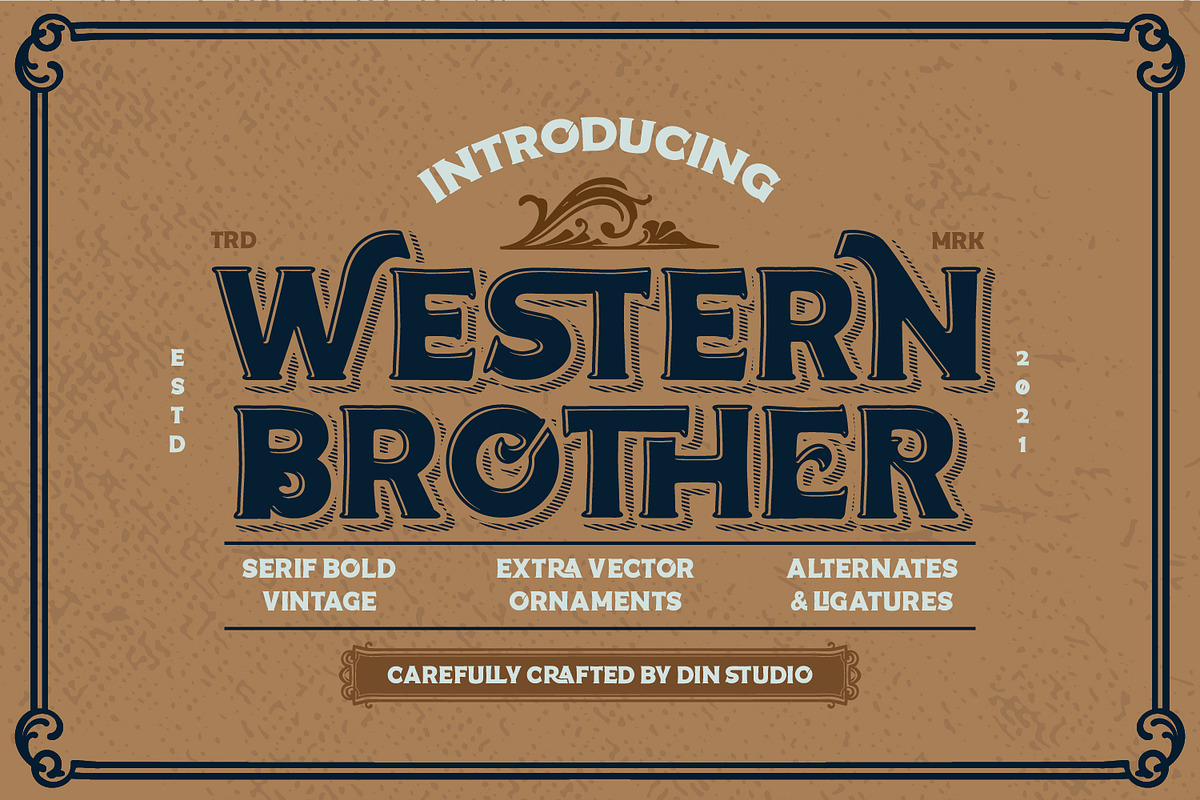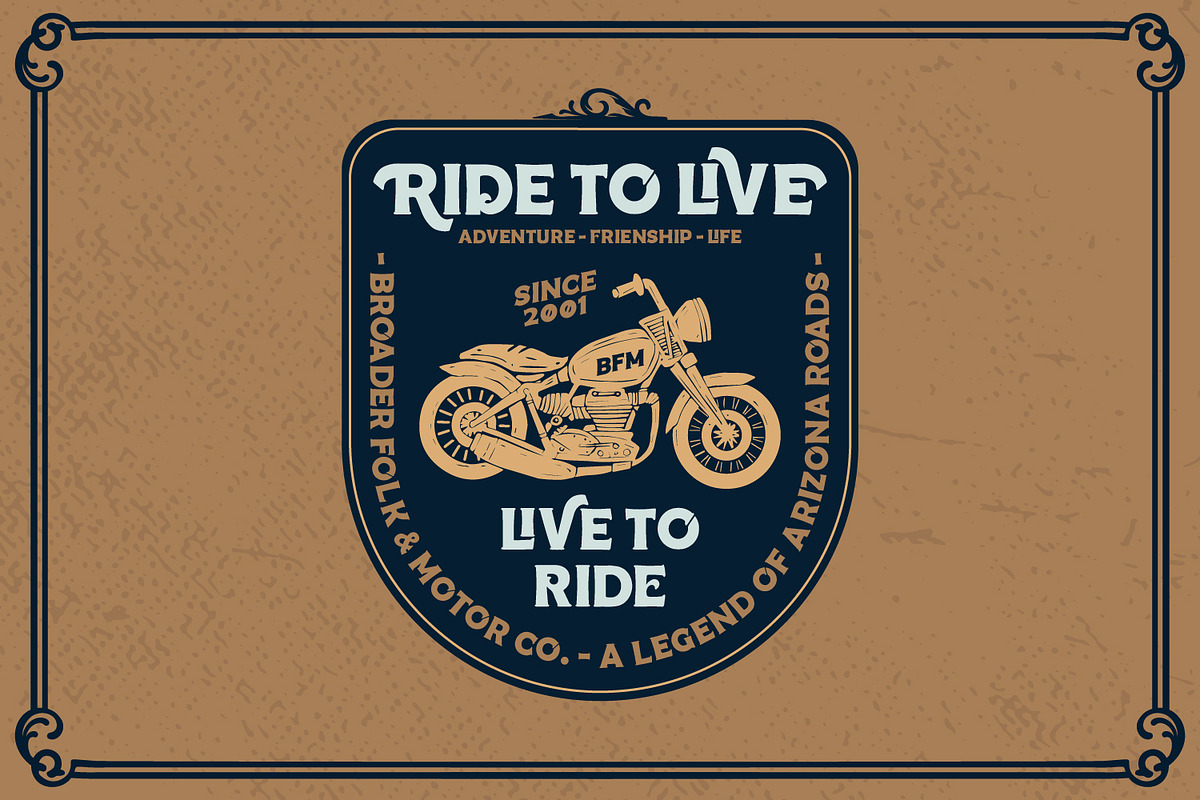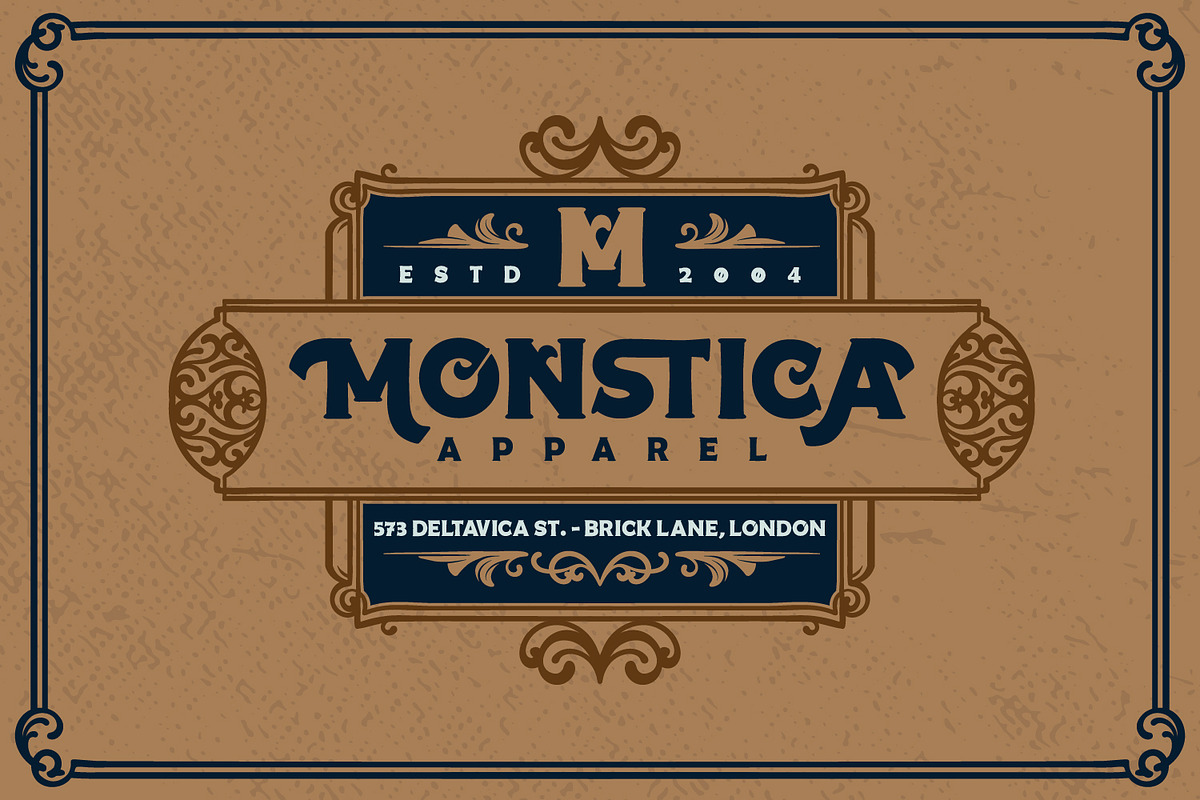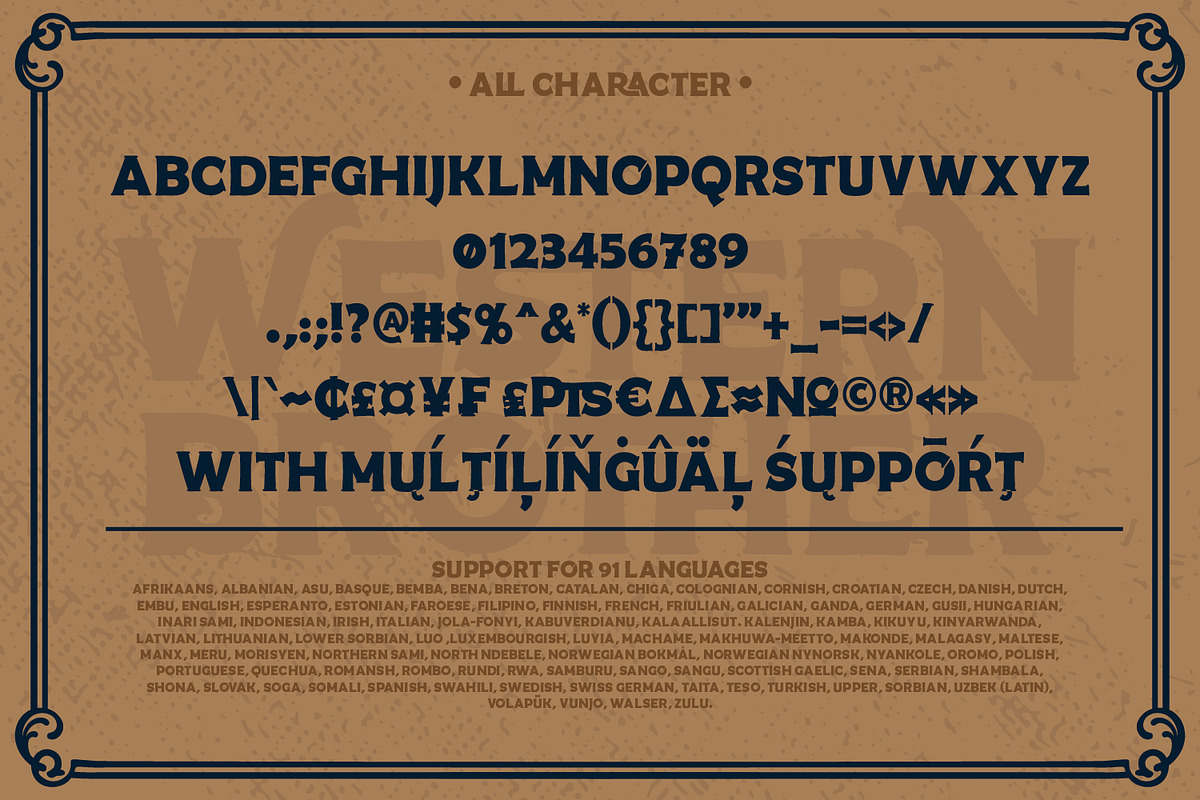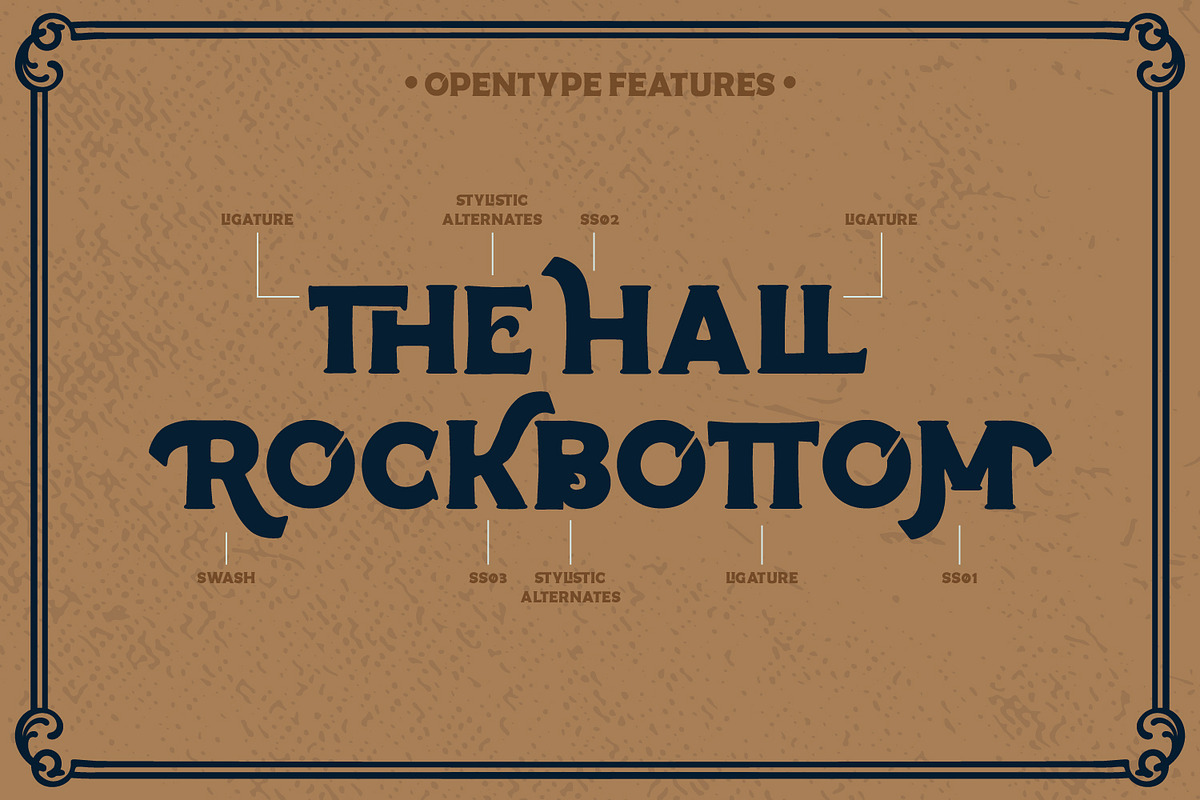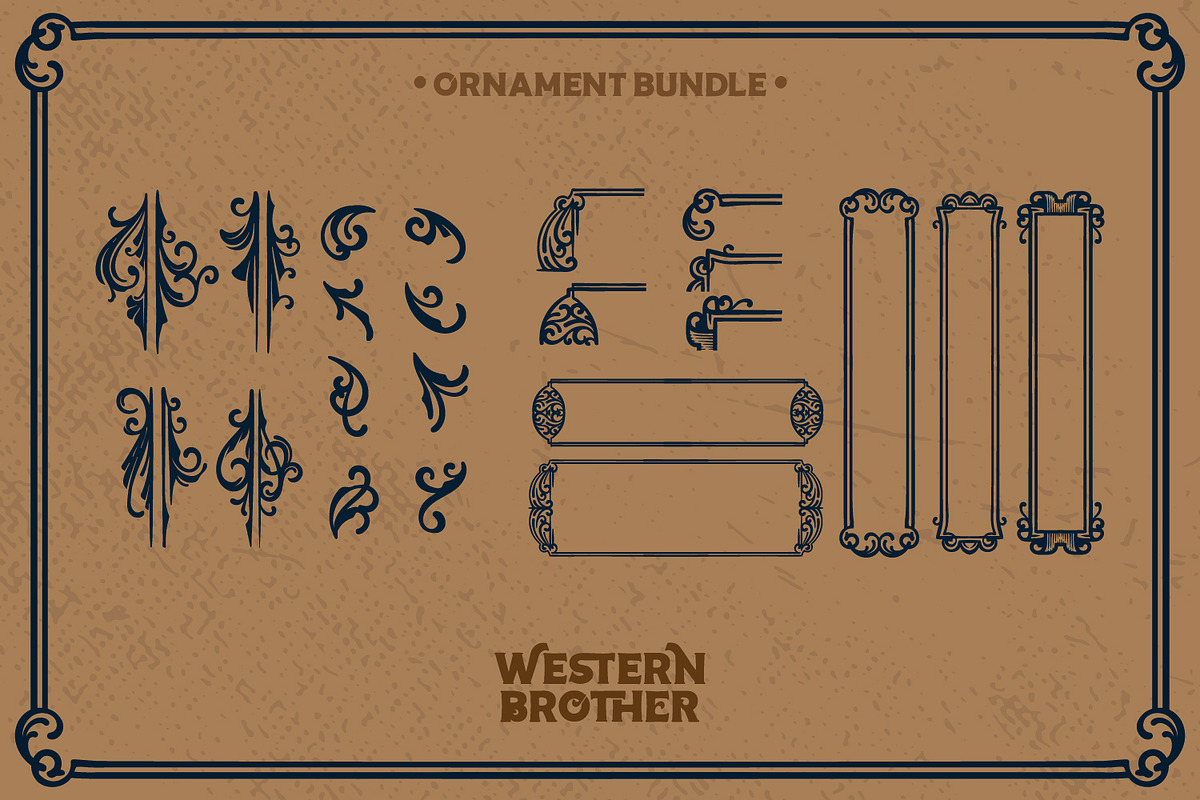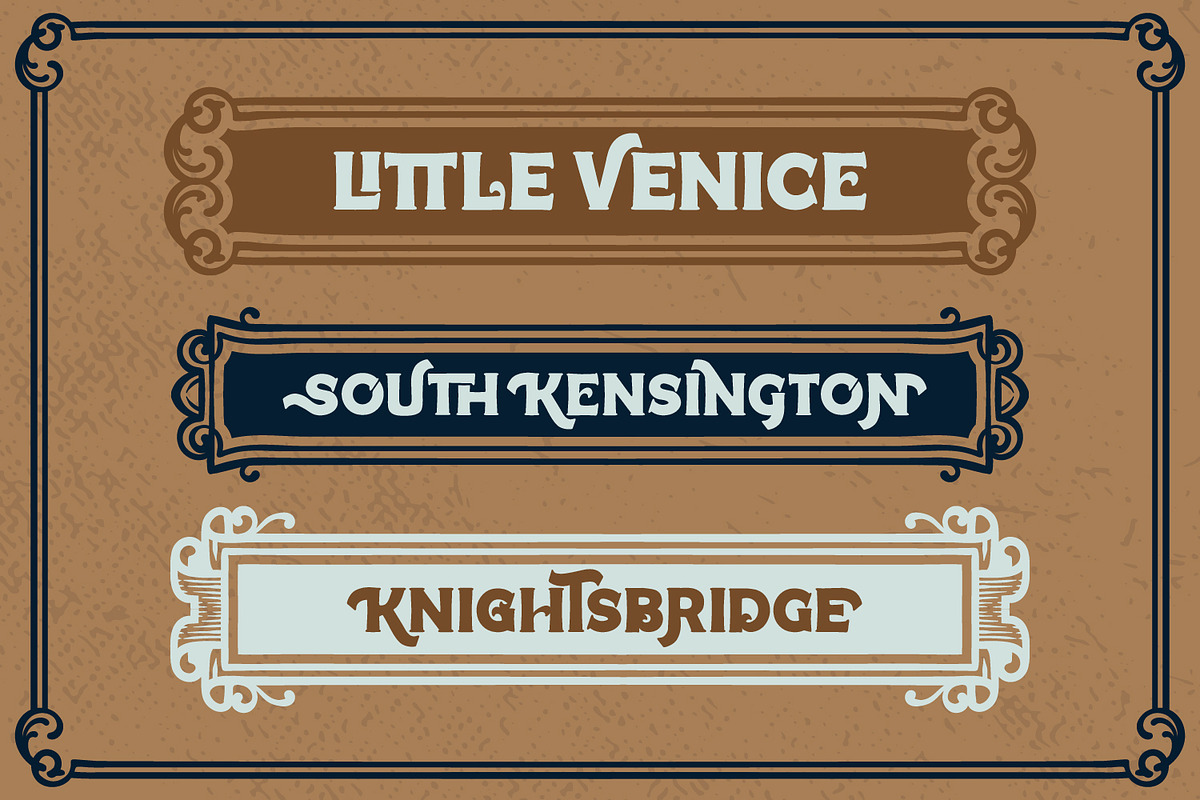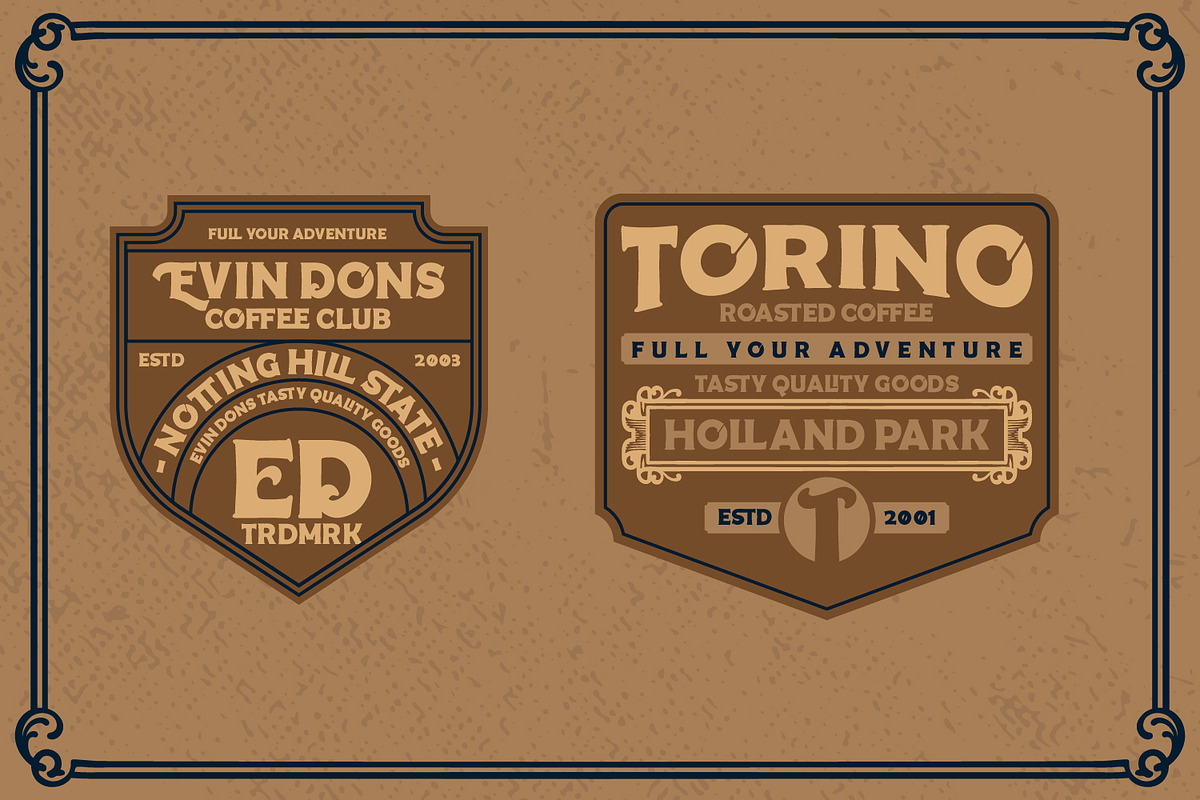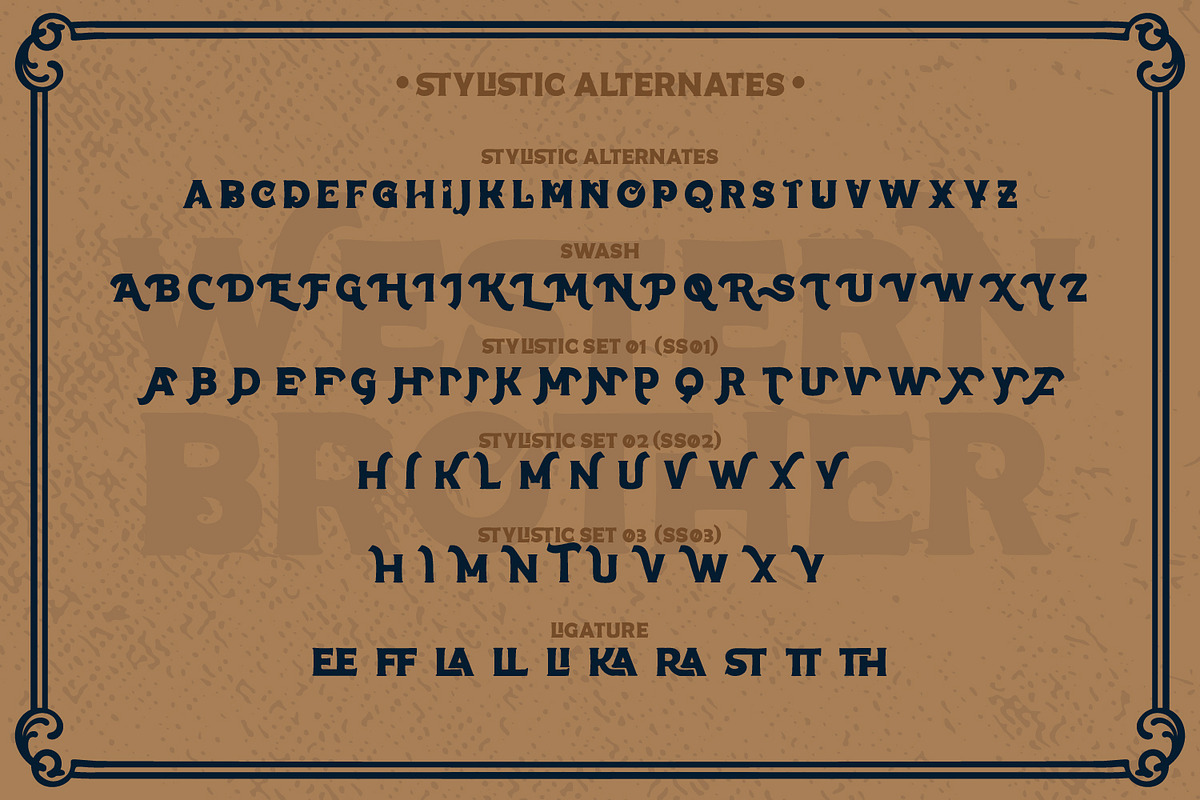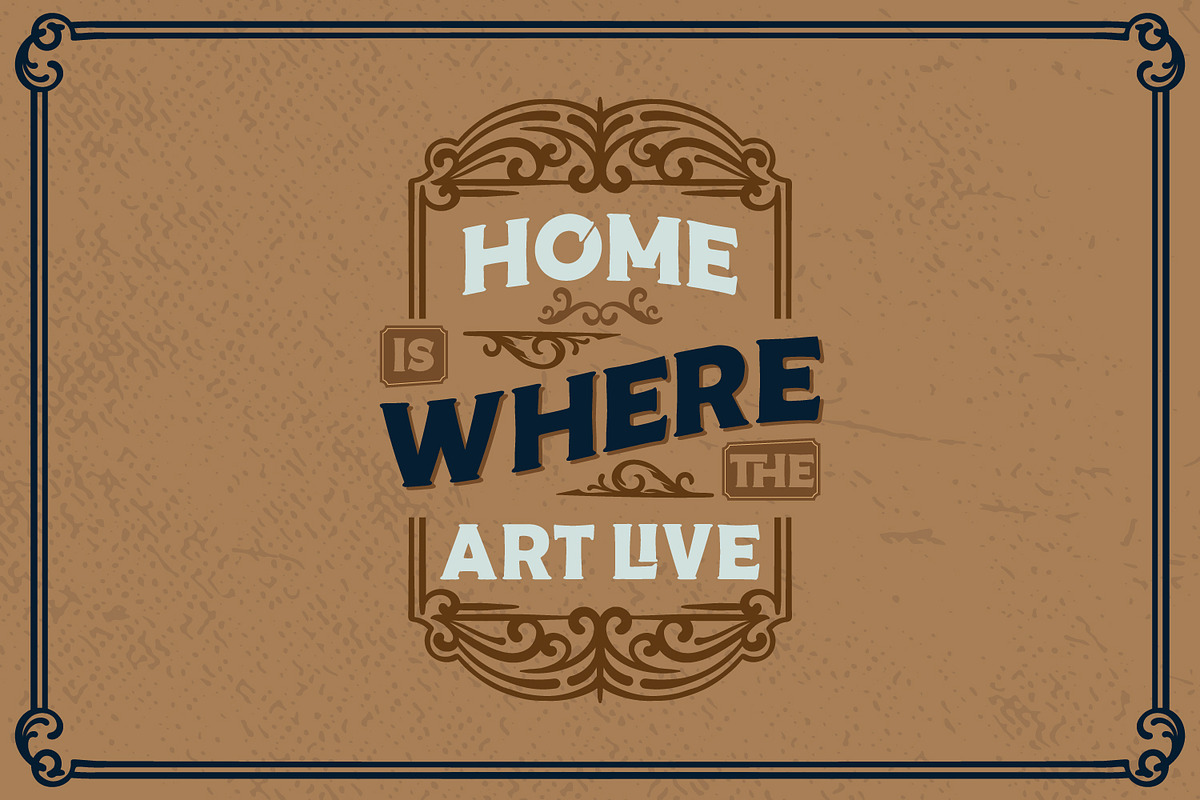
Western Brother
Western Brother-A Vintage Font
Western Brother is a typeface that is made by all characters in uppercase. An excellent choice to add the right amount of retro touch. This typeface with artistic style looks very interesting for loads of different projects and promotions. A great all-in-one package for your logo, book cover, poster, t-shirt, branding, and advertisement needs.
- Stylistic Set
- Bonus Ornament